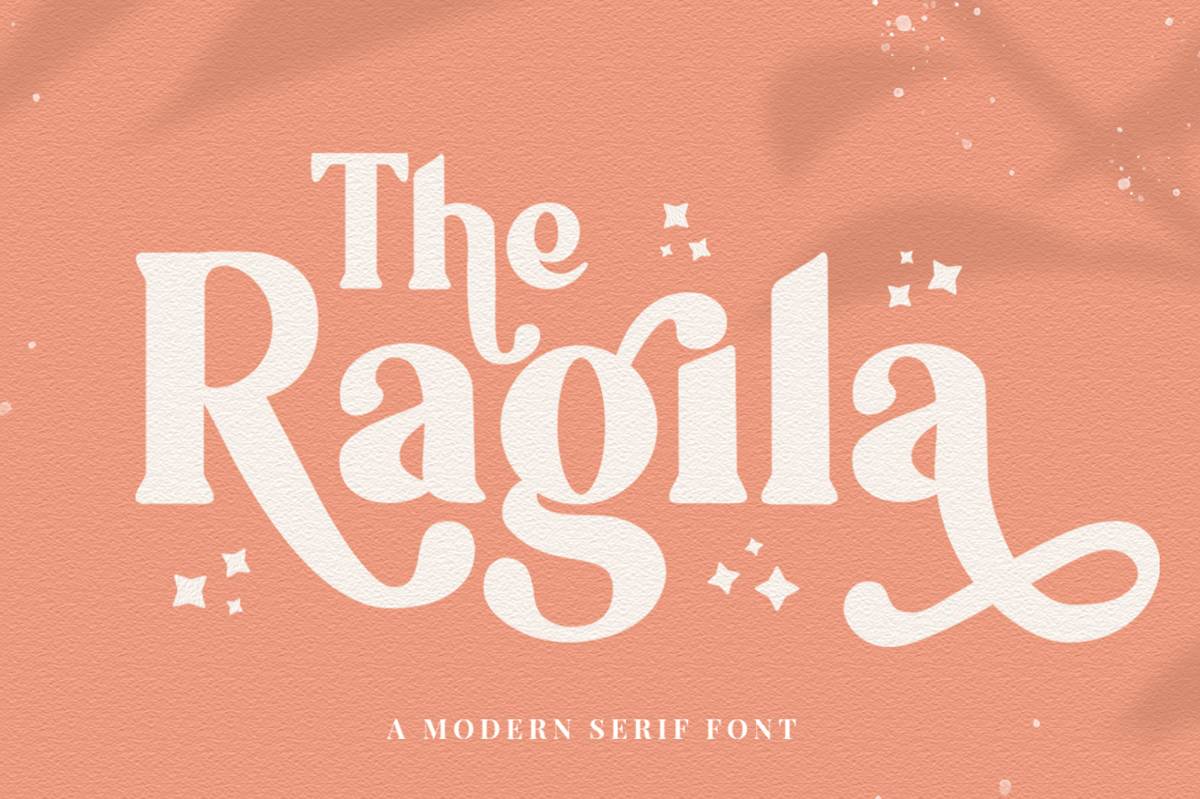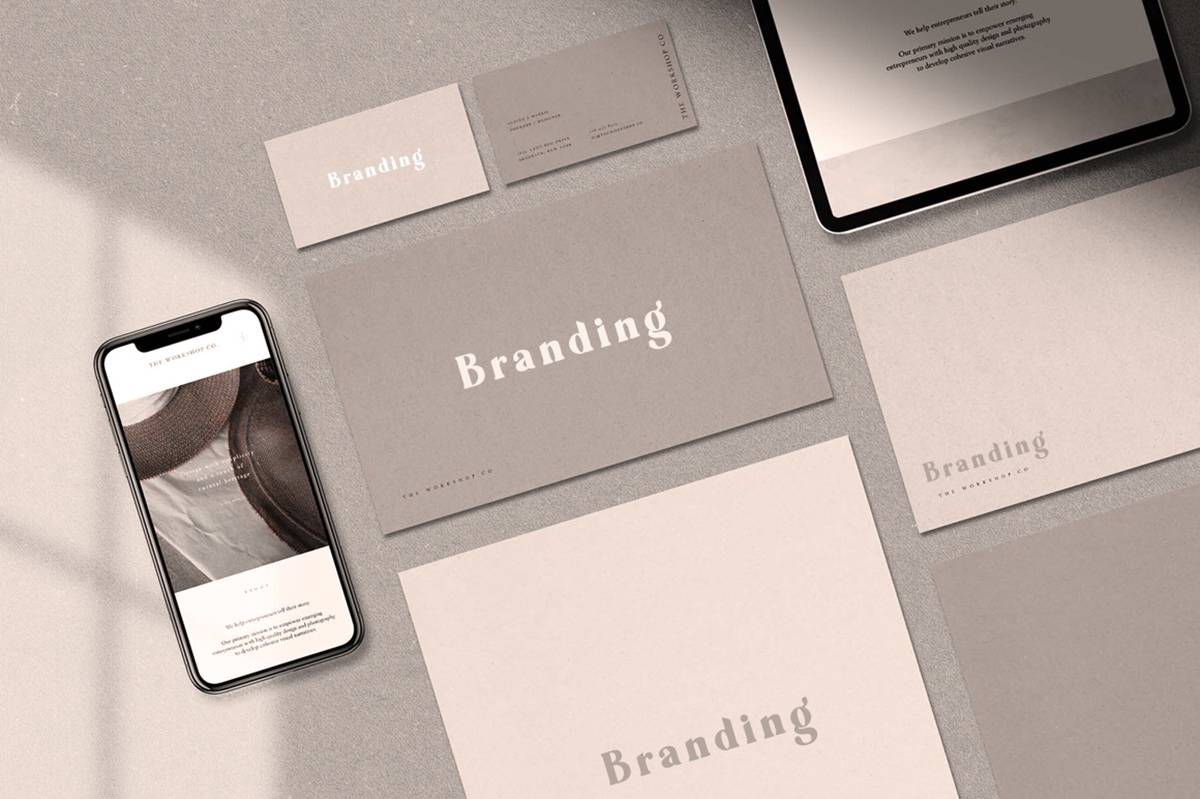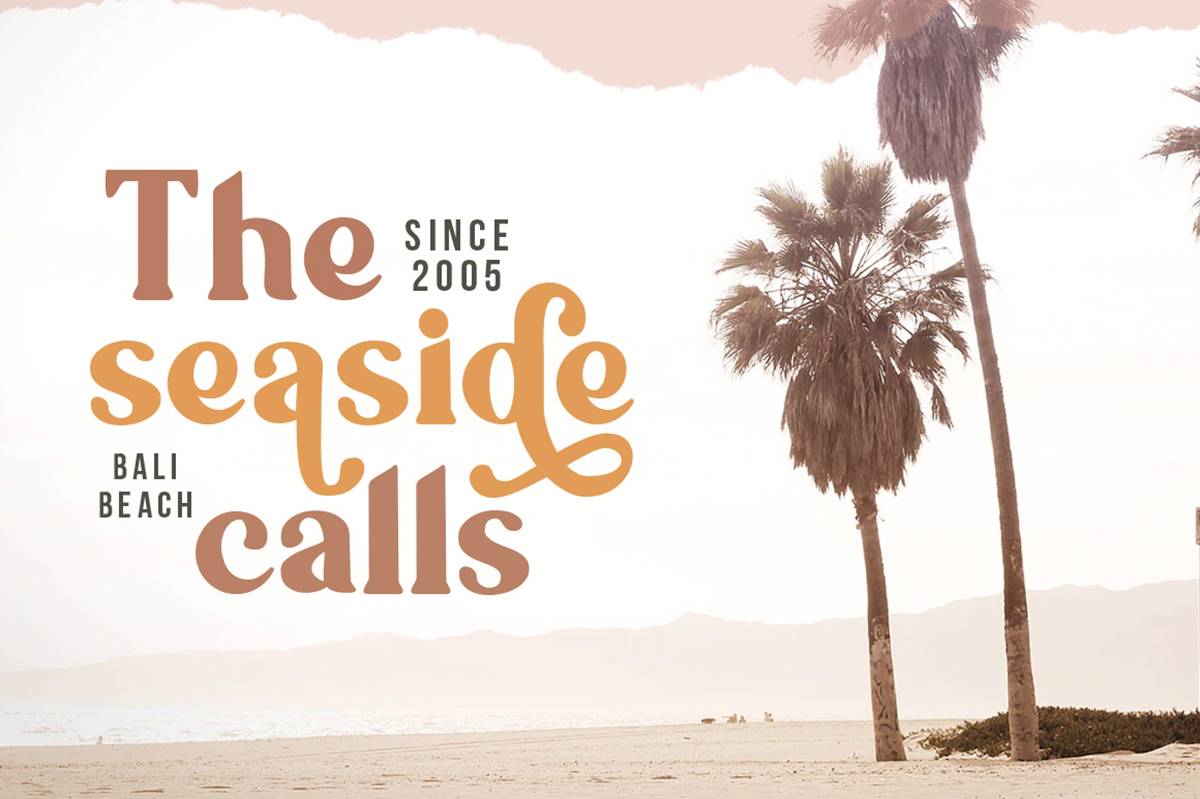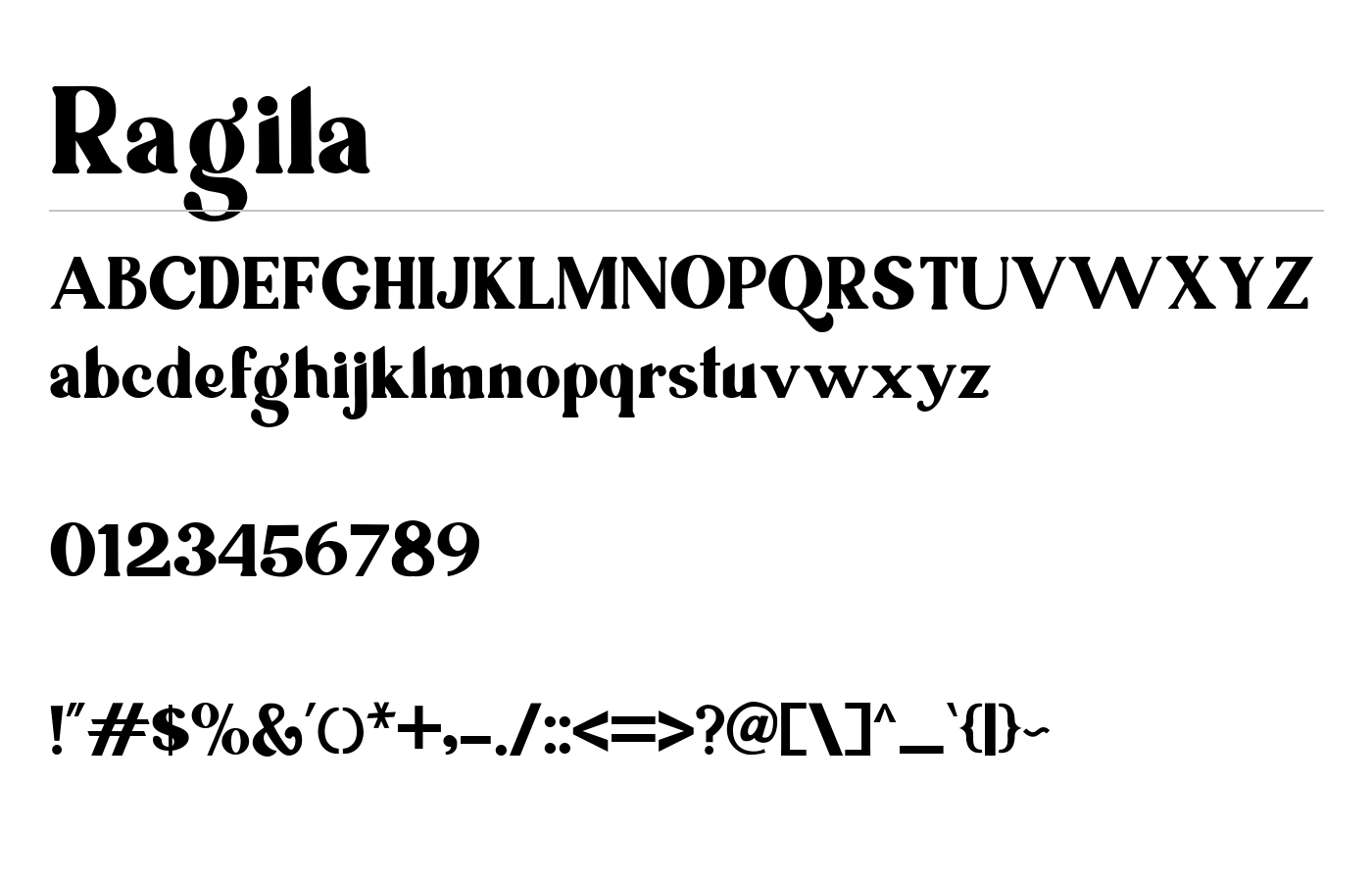
Ragila is a bold serif font with a strong presence, featuring high contrast between thick and thin strokes and elegant, bracketed serifs that give it a classic yet robust look. Its distinctive letterforms, including a single-story 'g' and unique character details like the curved tail on the 'Q', make it ideal for logos, headlines, and editorial use where a confident, traditional style is needed. This font works well for luxury branding and print designs that want to communicate seriousness and sophistication with a timeless flair.
Ragila Font
About Ragila Font
| Font family | Ragila Font |
| Release date | 2020-06-15 |
| Designer | Vultype Co |